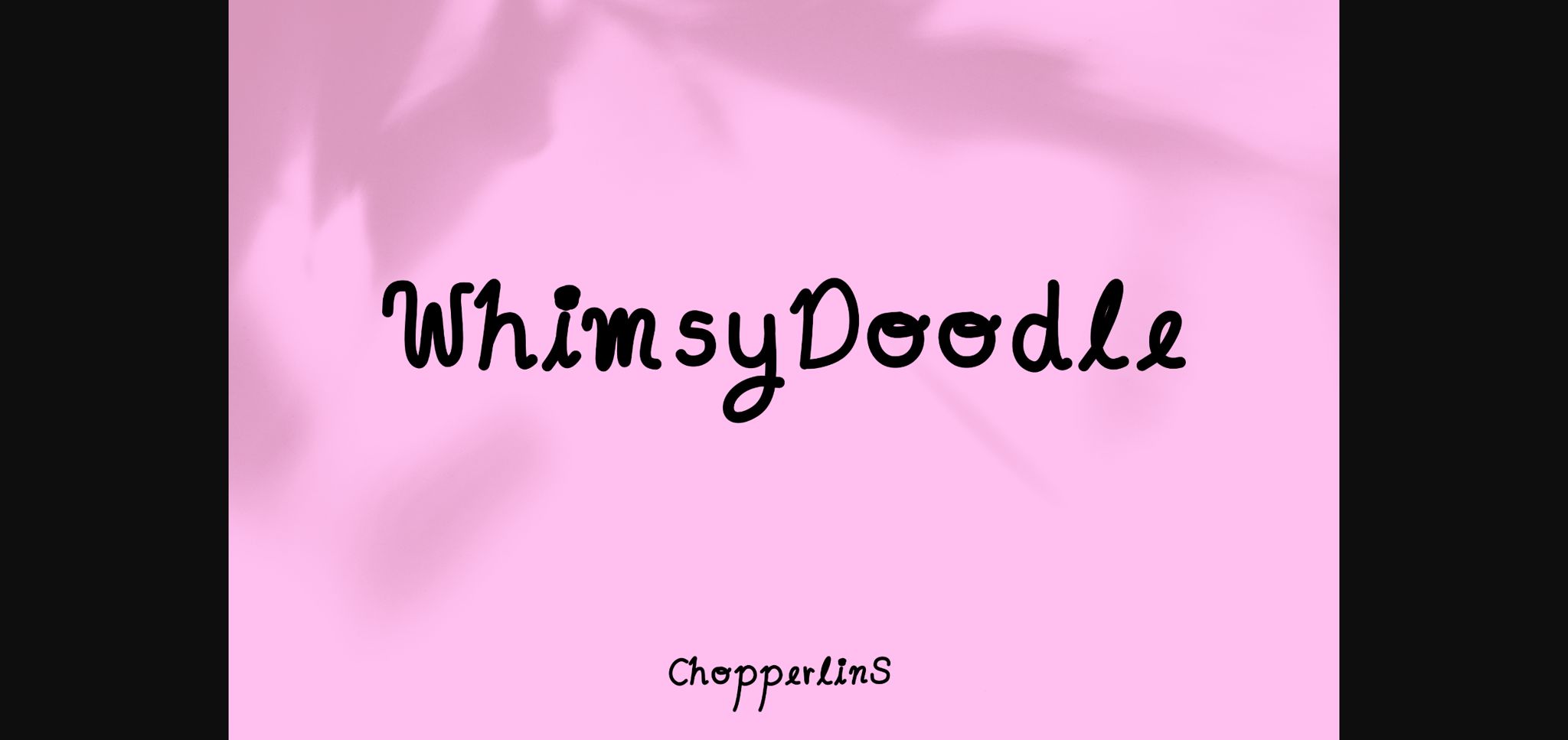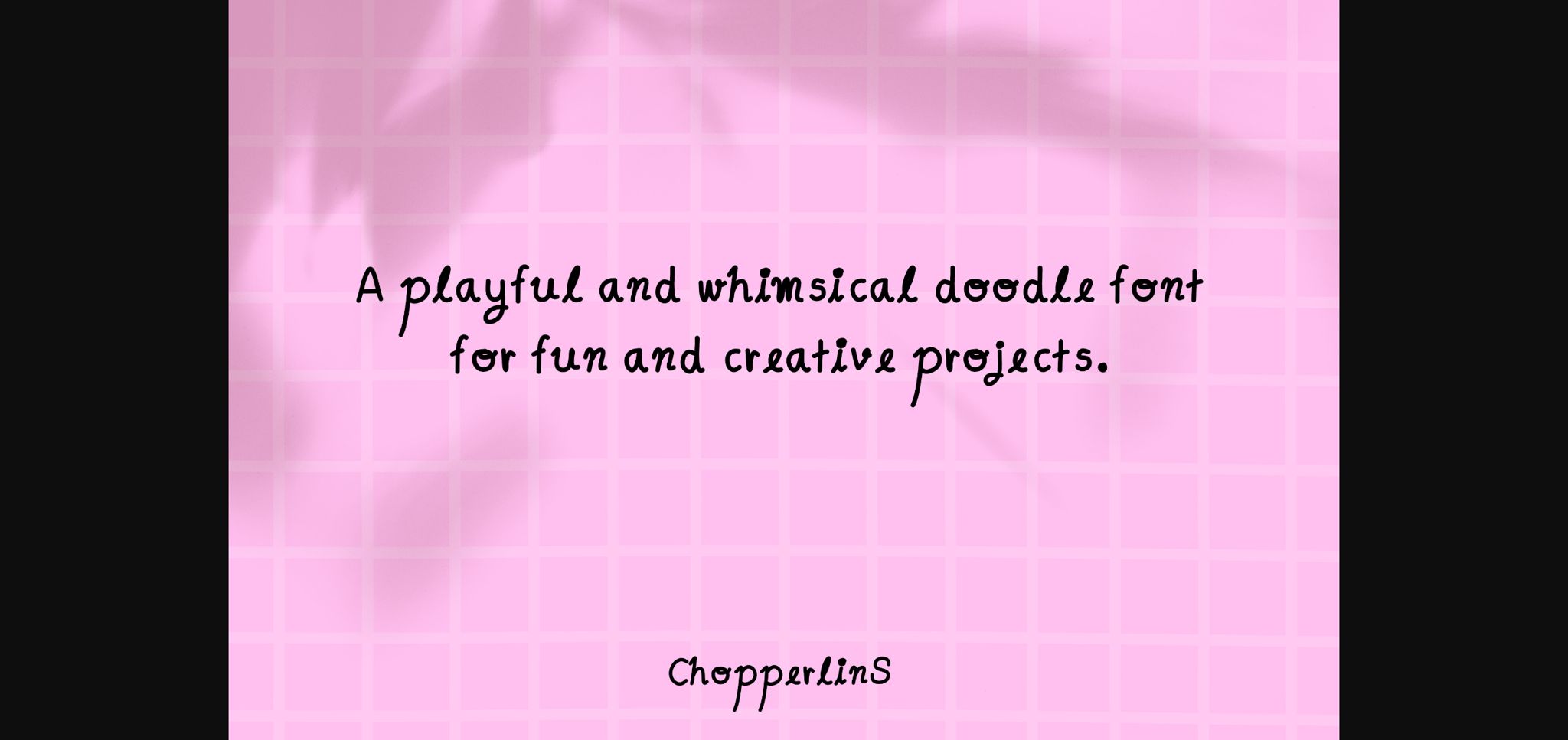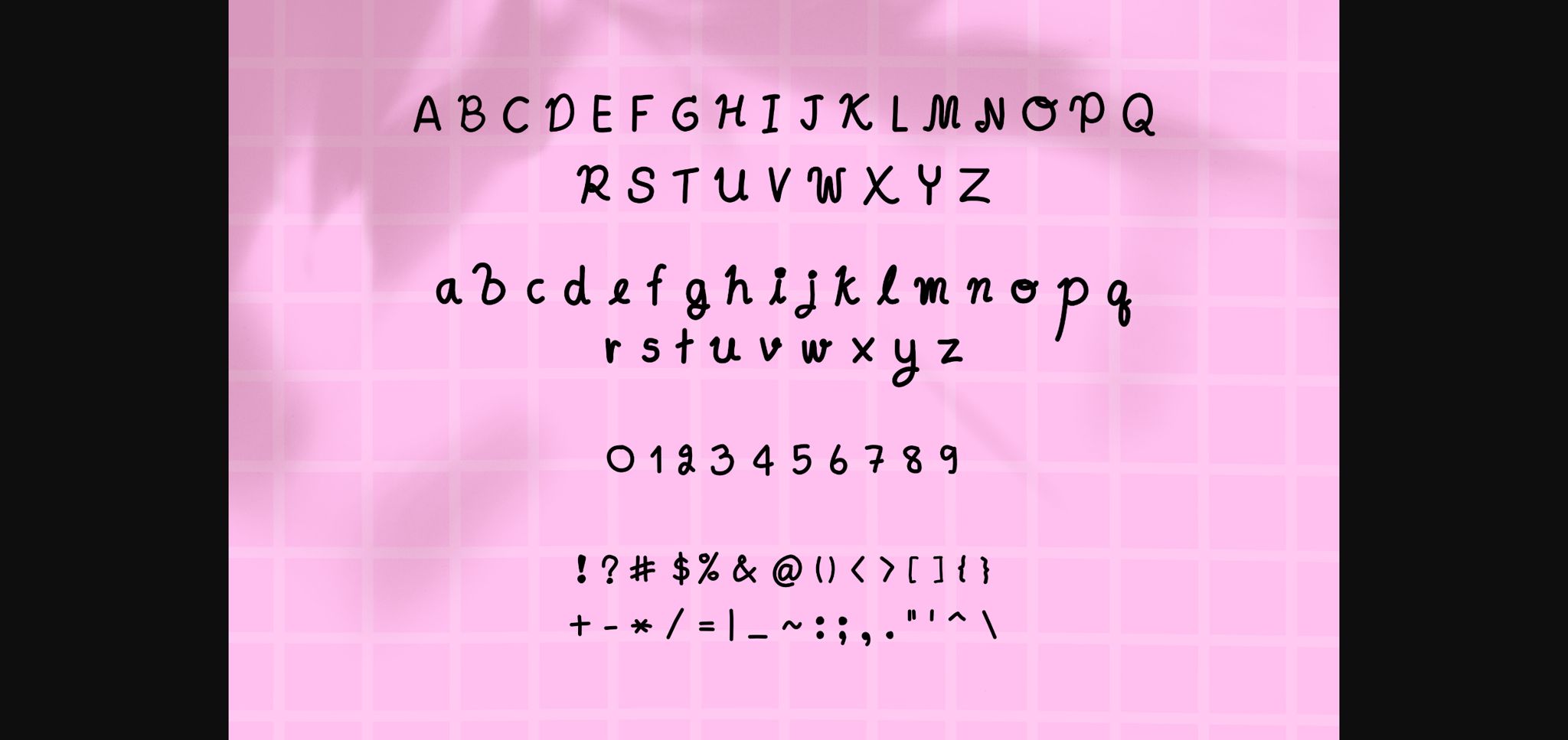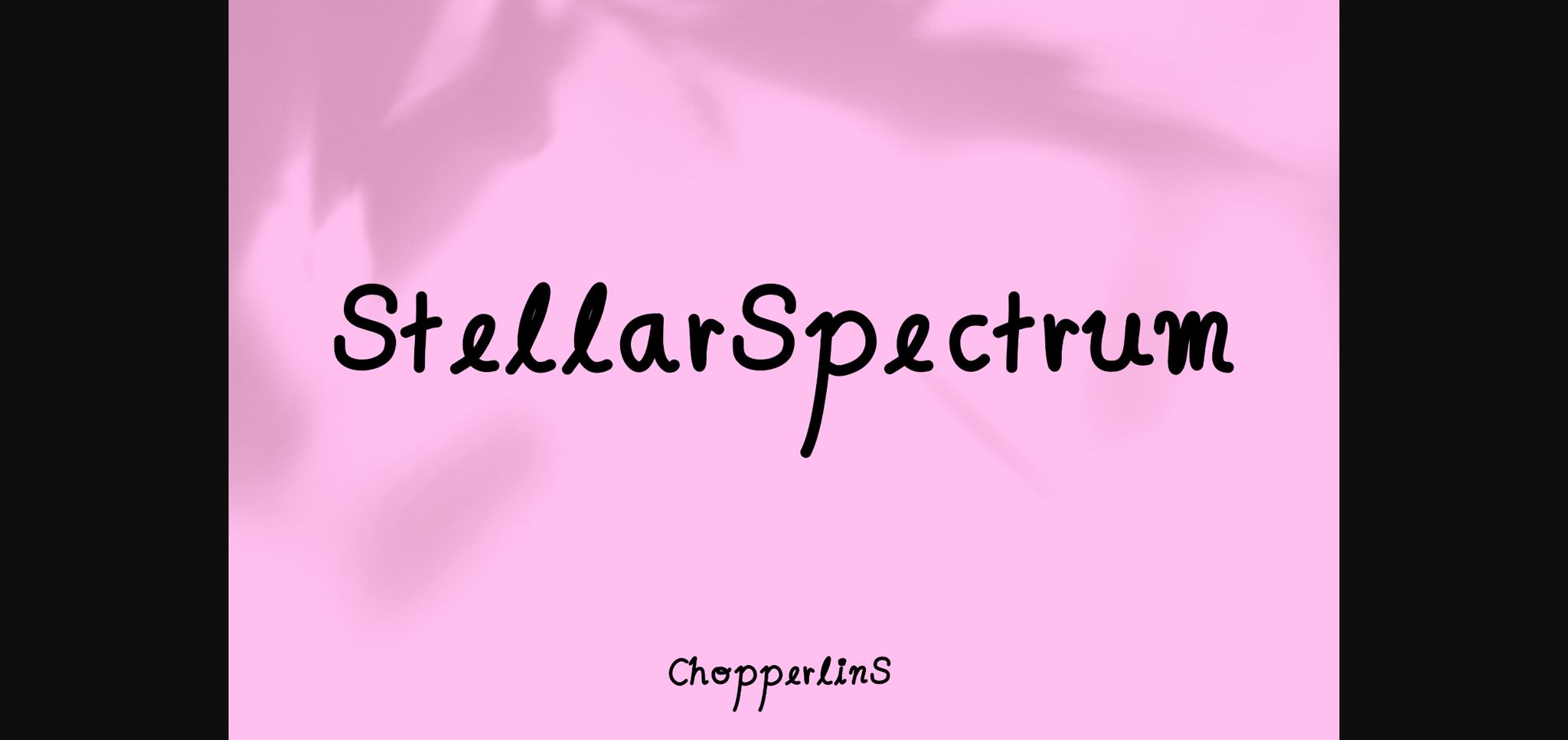
Whimsydoodle Font
About Whimsydoodle Font
WhimsyDoodle font is a playful and enchanting typeface that radiates creativity and joy. Its whimsical design, characterized by lively strokes and charming details, adds a touch of magic to any project.
The font’s cheerful letterforms and imaginative elements make it a delightful choice for a variety of creative endeavors, from children’s book illustrations to event invitations.
WhimsyDoodle effortlessly combines a sense of spontaneity with a structured readability, making it versatile for both headers and body text. The playful spirit embedded in this font invites a sense of wonder and adds a dash of lightheartedness to designs, creating a captivating visual experience.
Whether used in digital or print media, WhimsyDoodle brings forth a sense of fun and whimsy, making it an ideal choice for projects that aim to capture the imagination and spread joy.